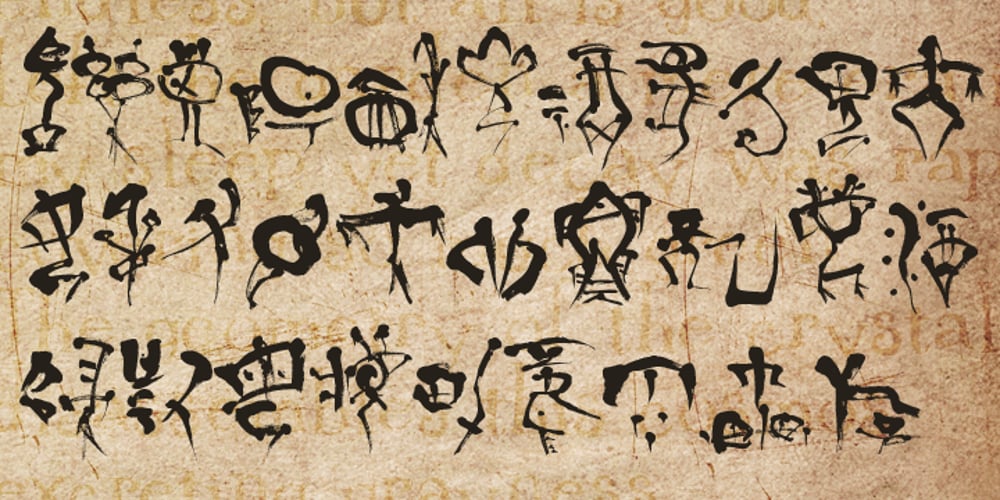
Oracle Bone
Oracle Bone font
Oracle Bone Font Family was designed by Natsuko Hayashida and published by Okaycat. Oracle Bone contains 1 styles and family package options. Oracle Bone is a font showing ancient glyphs which were used long ago for divination in China. In Chinese this oracle bone script is called “pinyin”. Oracle Bone is a latin font with a pinyin glyph in place of each letter.